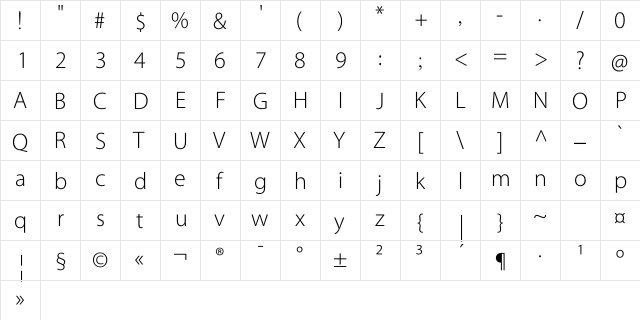
BPG Afxazeti Medium Regular
| Foundry | BPG InfoTech |
| Designer | BPG-InfoTech |
Design Context for BPG Afxazeti Medium Typeface
BPG Afxazeti Medium takes a measured approach to typography — its balanced proportions and neutral character make it a reliable workhorse for both digital and print work.